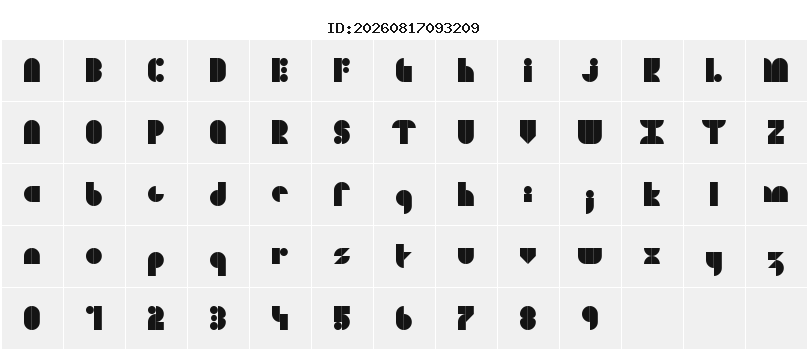
Soul Festival Preview
• Font Name: Soul Festival
• Designer: imagex
About Soul Festival.ttf
Soul Festival.ttf is a modern, elegant sans-serif font designed for ultimate readability and visual harmony. Perfect for branding, headlines, web design, and print materials.